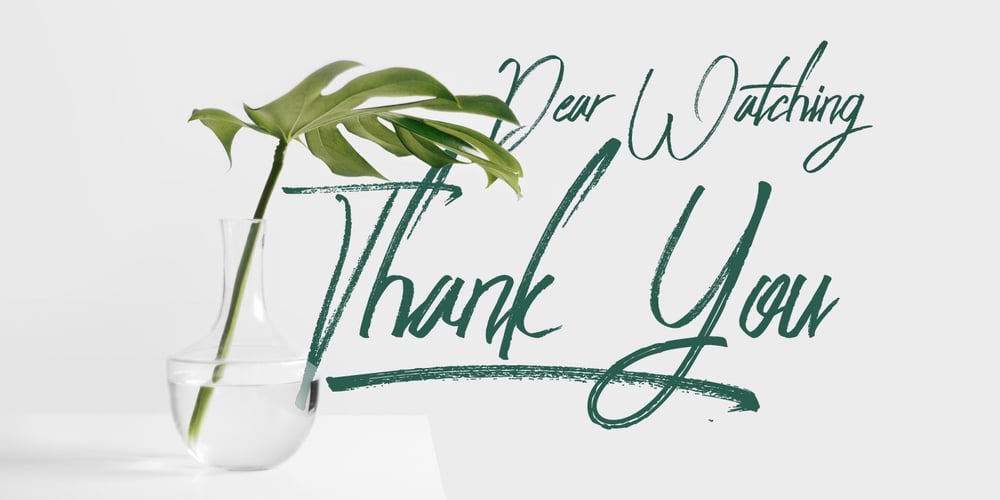
Peace Maker
Peace Maker font
Peace Maker Font Family was designed by Ferry Hadriyan and published by FHFont. Peace Maker contains 2 styles and family package options. Peace Maker is a dry Brush Script Font with hand-lettered style. Suitable for design, element design, wedding, event, t-shirt, logo, badges, sticker, and awesome work.